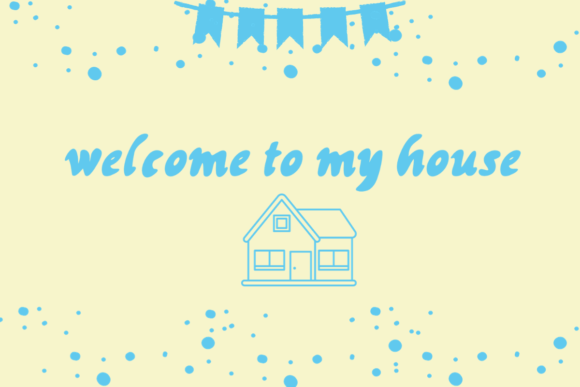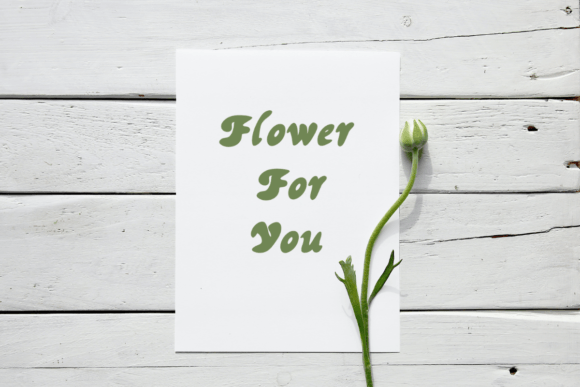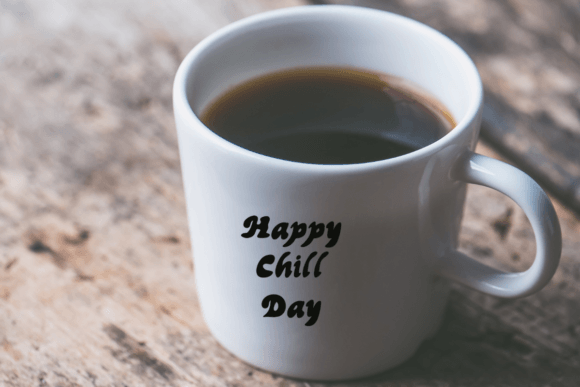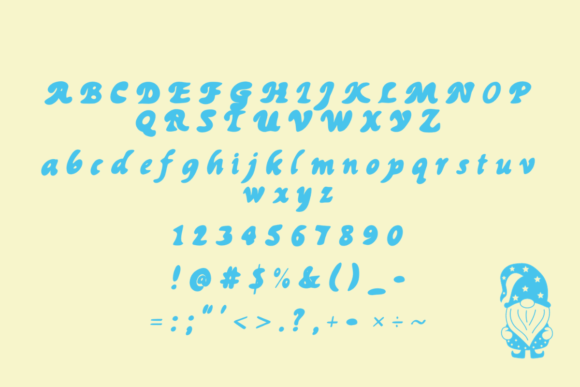
Introduction to Happy Gnome Font
Have you ever stumbled upon a font that instantly transports you to a bygone era, evoking memories of childhood summers and carefree laughter? For designers, this is the holy grail – a font that not only captures the essence of nostalgia but also brings a touch of whimsy to their creative projects. Welcome to the enchanting world of Happy Gnome Font, a retro font that’s as charming as it is versatile.
As a design resource, Happy Gnome Font is a treasure trove of possibilities. Whether you’re working on a cute card, a relaxing flyer, or a kid-friendly project, this font is sure to bring a smile to your face. With its transparent background and high-quality design, it’s the perfect addition to any creative endeavor.
Key Features of Happy Gnome Font
- High-quality, vector-based design for a crisp and clear appearance at any size.
- Designed with a unique, whimsical style that adds a touch of personality to any creative project.
Honest Review: Happy Gnome Font
I recently had the chance to work with the Happy Gnome Font on a creative project, and I’m excited to share my thoughts on this design resource. As a designer, I’m always on the lookout for high-quality fonts that can elevate my work, and the Happy Gnome Font certainly delivers.
- ✨ The font’s unique, whimsical style is perfect for adding a touch of personality to designs.
- ✨ The font is highly customizable, with a transparent background that makes it easy to use on a variety of design elements.
- ⚠️ The font may not be suitable for formal or professional designs, as its playful style can come across as unprofessional.
- ⚠️ Some users may find the font’s size and weight limitations to be restrictive.
Overall, I’m impressed with the Happy Gnome Font’s versatility and high quality. While it may not be the best fit for every design project, it’s a great addition to any designer’s toolkit. With its free download option and transparent background, it’s an easy choice for designers looking for a fun and creative font to add to their designs.
Experiment with different font sizes, colors, and styles to create a unique design. Combine the Happy Gnome Font with other design resources to add depth and interest to your project. Use it for headings, subheadings, or body text to create a consistent design language.
The Happy Gnome Font is ideal for creative projects, such as posters, flyers, and social media graphics. Use it to add a playful touch to your designs and make them stand out. You can also use it for branding, logos, and marketing materials to create a consistent visual identity.